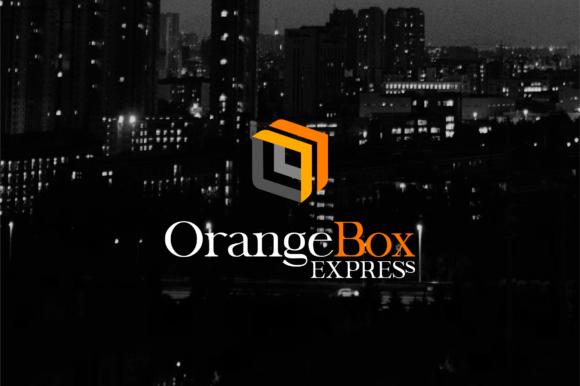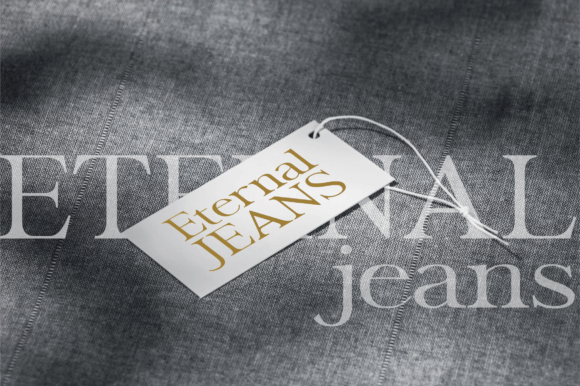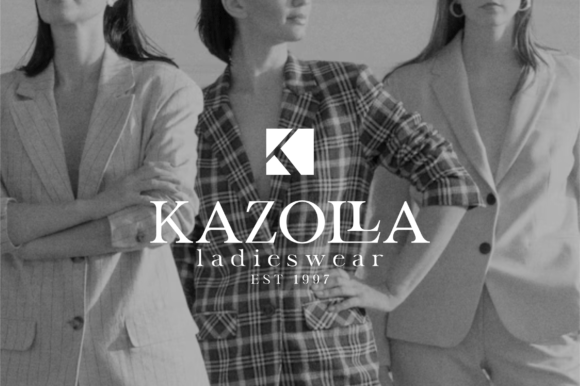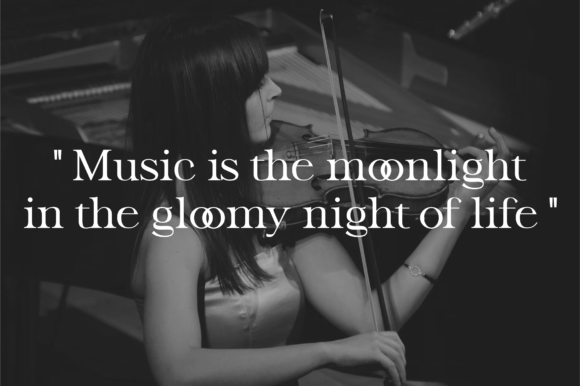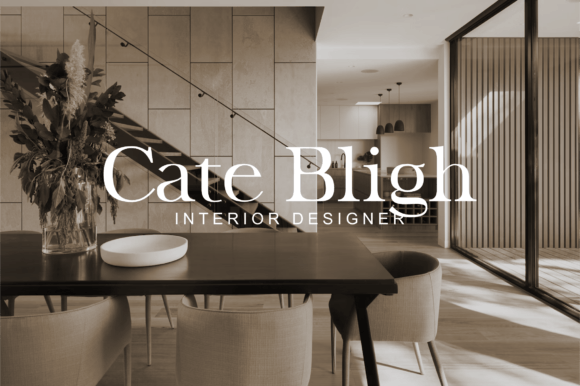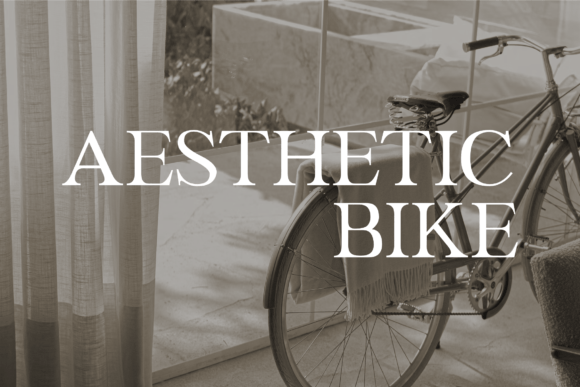
Introduction to Hranfsey Font
Introducing Hranfsey, a modern serif display font that exudes timeless elegance and strength.
Its distinctive character makes it an ideal choice for a wide range of design projects Whether youโre crafting eye-catching posters, creating unique artisanal products, developing a memorable logotype, enhancing brand identity, or designing sophisticated interior spaces, Hranfsey delivers unparalleled versatility and impact.
Key Features of Hranfsey Font
Why Choose Hranfsey Font?